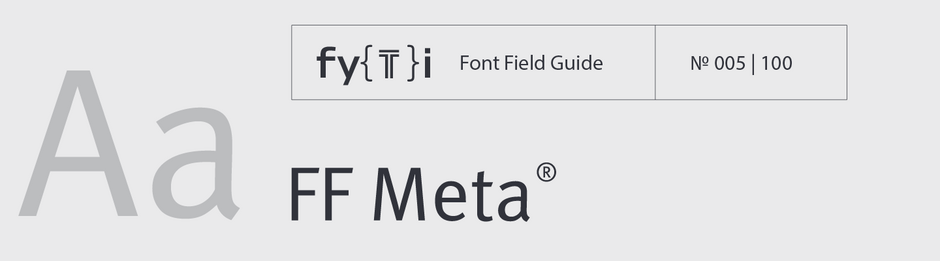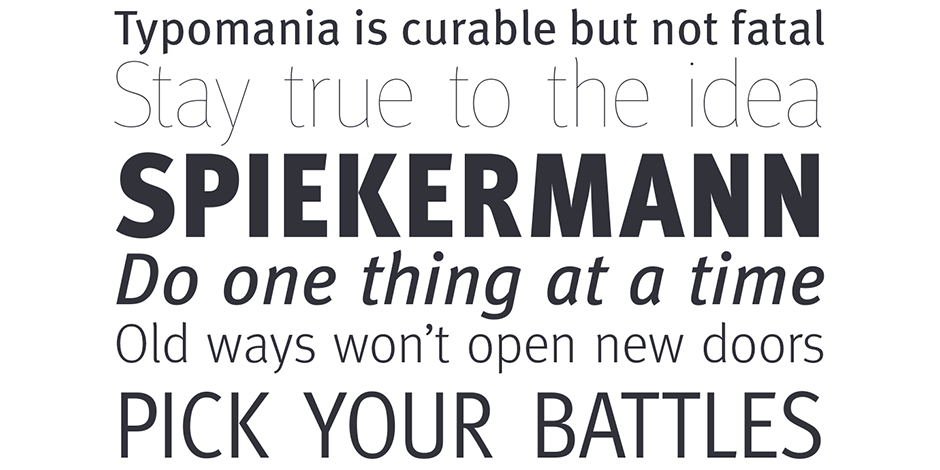
FF Meta Font Field Guide
Best Practices
The Meta design is somewhat condensed (saving space) and benefits from stroke weights and character spacing that withstand poor printing and modest resolution digital imaging. Additionally, individual characters were designed to be highly legible.
Family
The FF Meta family has eight weights of normal and six condensed widths, each with a companion italic design. FF Meta is also part of a super family, containing FF Meta Serif and several other variations for headline and office use.
Font Facts
- Meta has been called “the Helvetica of the 1990s.”
- The PT55 typeface was intended for use on the early Apple Macintosh computer.
- Bundespost decided not to implement the PT55 typeface for fear it would “cause unrest.”
Roots
In the early 1980s, Deutsche Post (German Post Office) contracted Sedley Place Design and Erik Spiekermann to redesign its brand. As part of the project, Spiekermann proposed a new typeface based on an earlier design of his called PT55. Deutsche Post, however, was not positive toward the proposal.
When it became clear that German Post Office would not use the design, Spiekermann continued work on the typeface and eventually published it as FF Meta, in 1991, under his newly formed publishing label FontFont.
Legibility
FF Meta’s relatively open apertures promote legibility and help to differentiate one letterform from another.
How To Spot FF Meta
Alternate Choices
Perfect Pairing